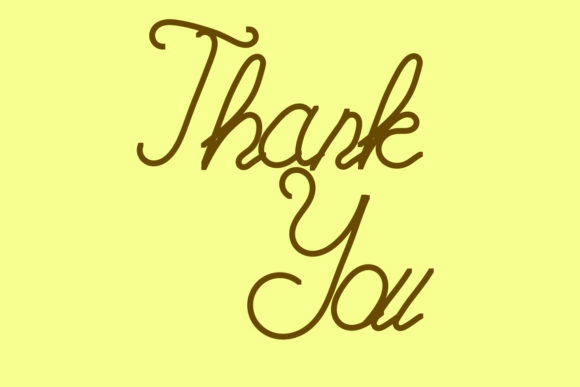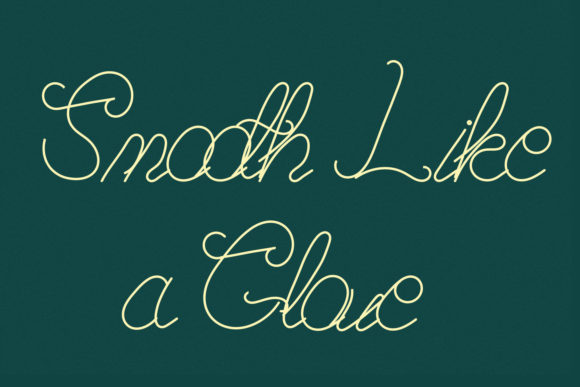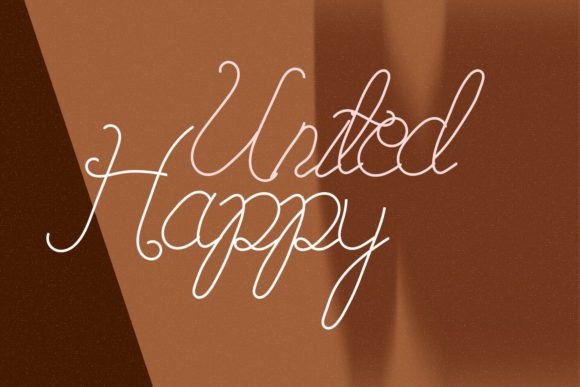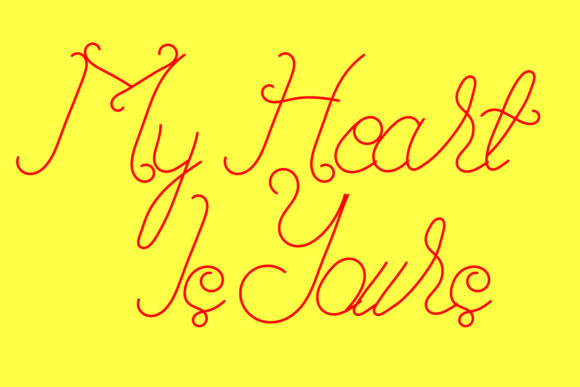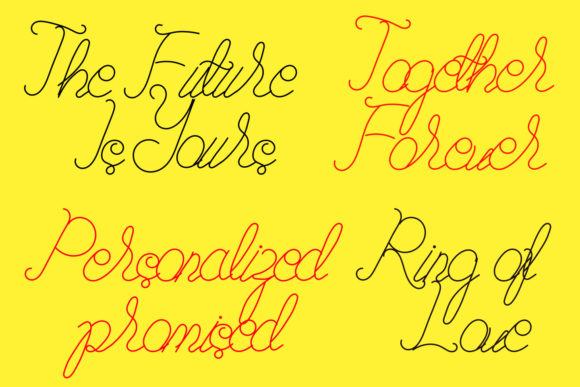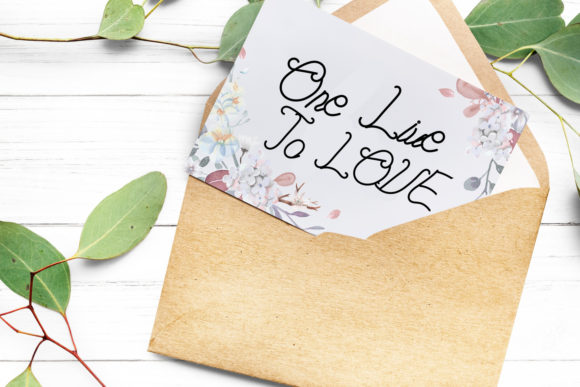
About Summer Linen Font
Summer Linen is a sweet and delicate handwritten font. Fall in love with its incredibly beautiful and versatile style and use it to create gorgeous wedding invitations, beautiful stationary art, eye-catching social media posts, and much more!